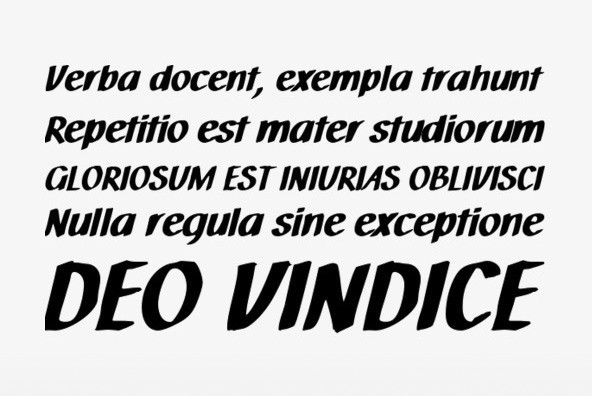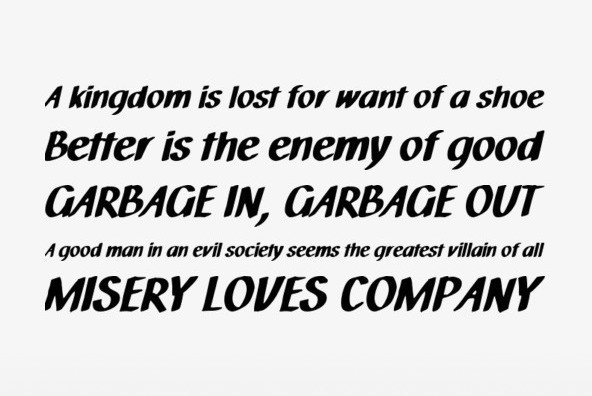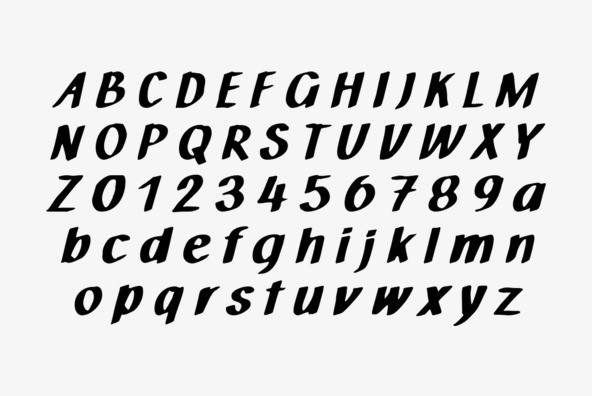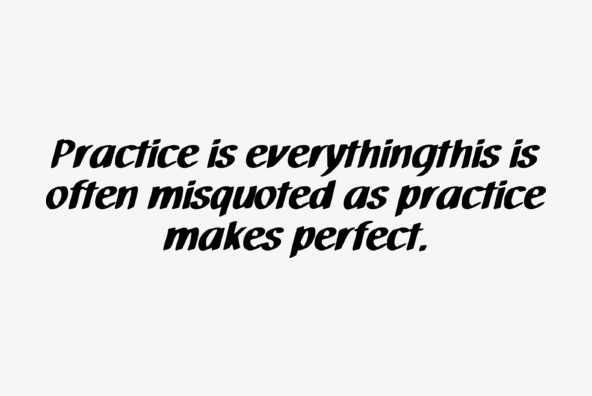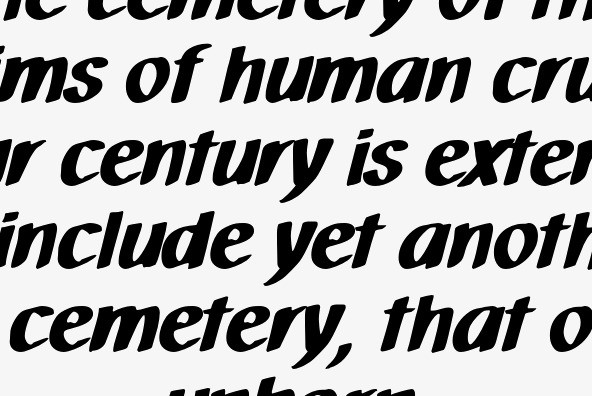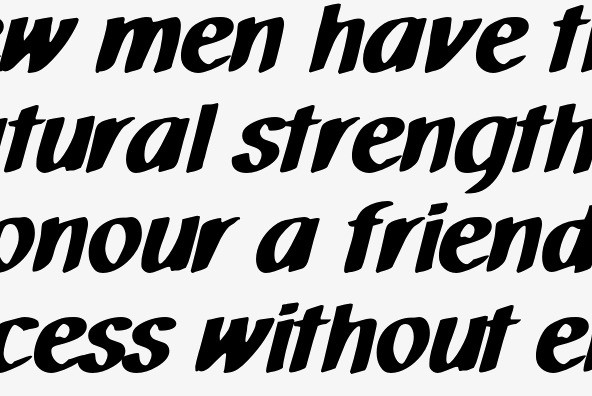
Designed by Heinrich H. Lindemeier in 2003, Media Sol is a script font release by URW. Contains language support for West, East, Turkish, Baltic, and Romanian.